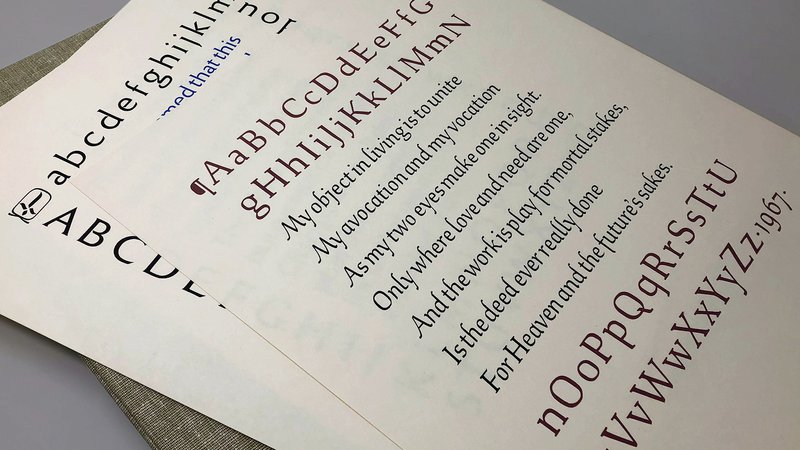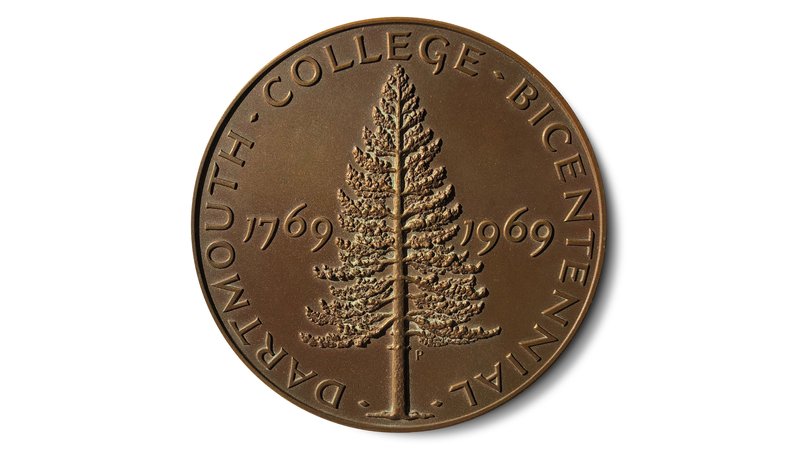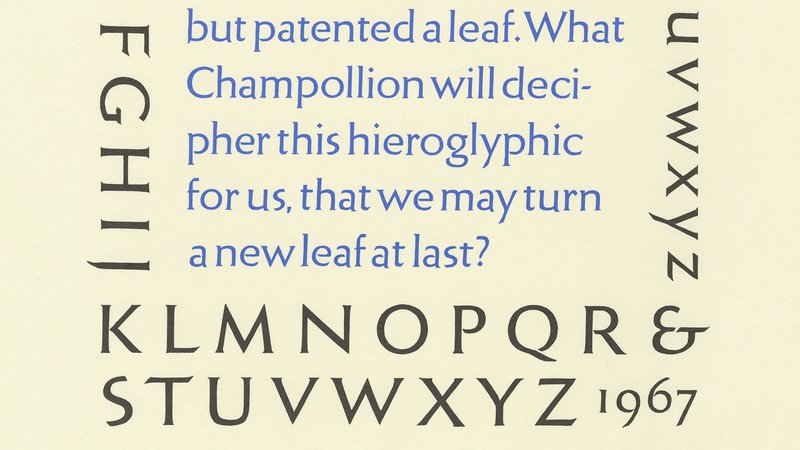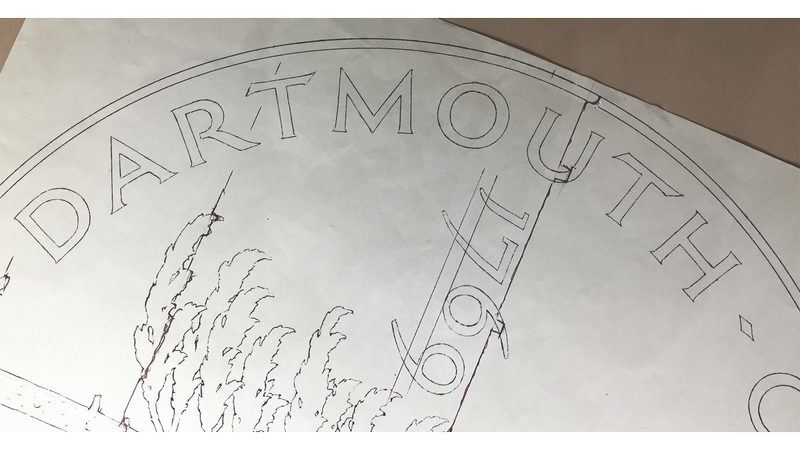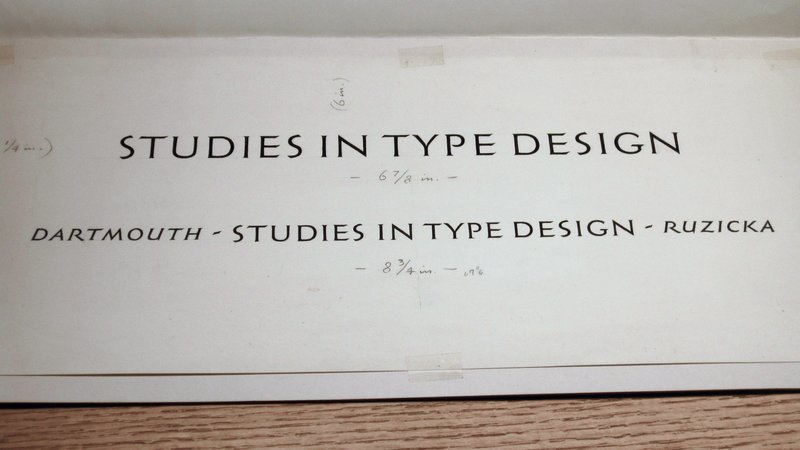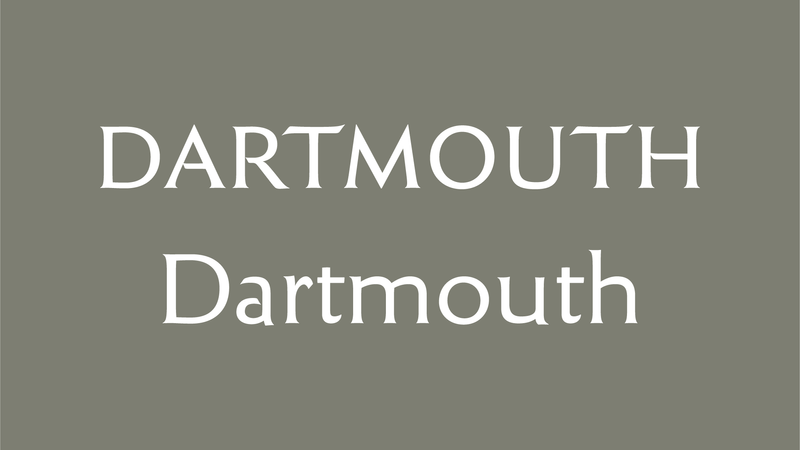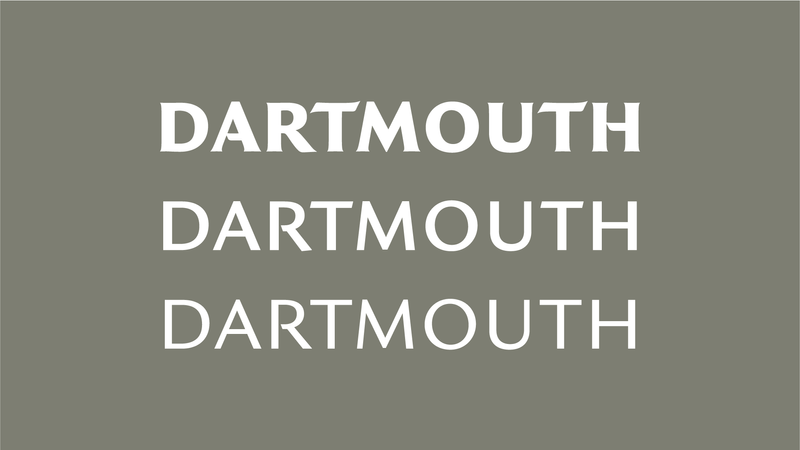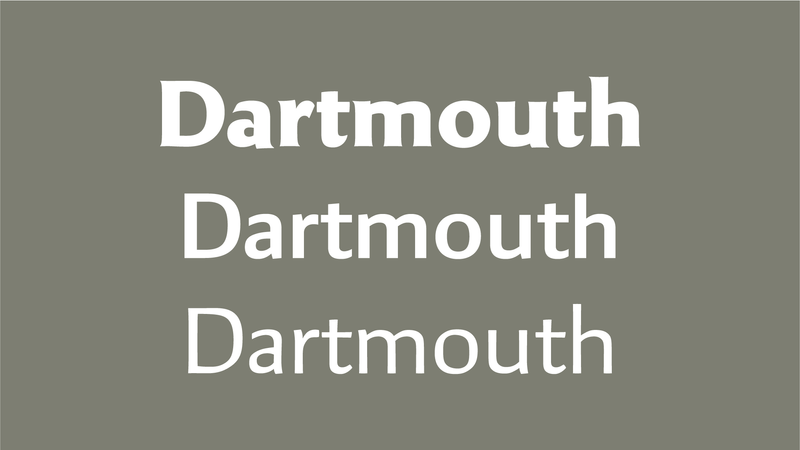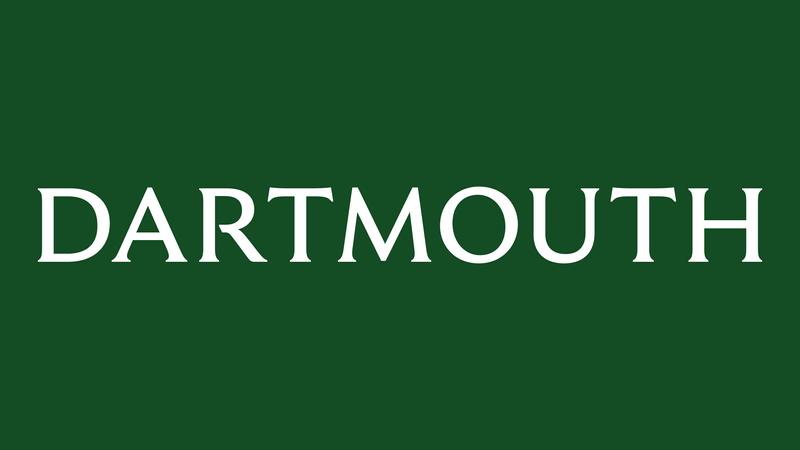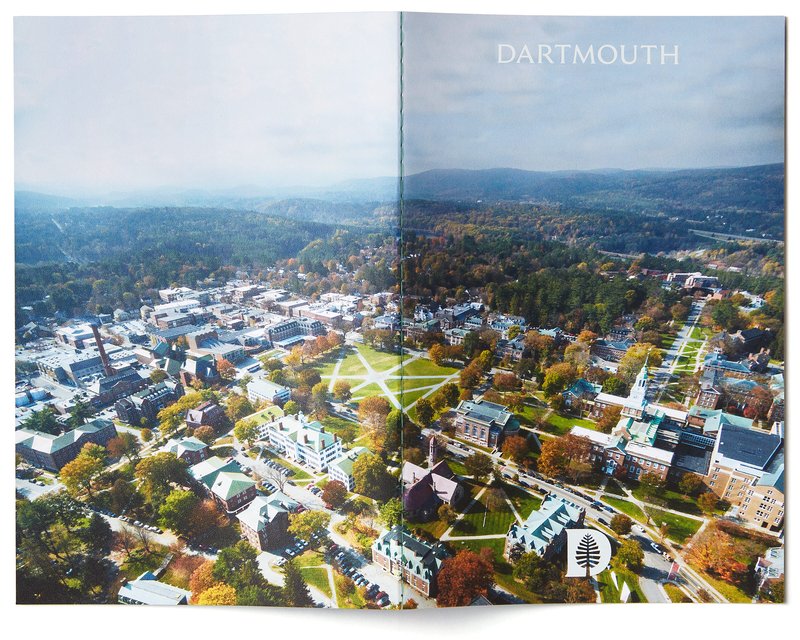
Our work with Dartmouth College is a story of serendipity combined with a long-standing interest in the lettering work of eminent type designer Rudolph Ruzicka. This collaboration resulted in a logotype and custom typeface steeped in Dartmouth’s history, which set the tone for their new identity system.
Custom typeface and lettering for Dartmouth College
Dartmouth logotype
The right person for the job
When Bobby Martin and Jennifer Kinon of Champions Design brought Jesse in to help advise on typography for Dartmouth in 2017, little did they know that they were asking the exact right person at the right time.
Back in 2000, when Jesse was an undergraduate at the Rhode Island School of Design, he came across the book Studies in Type Design, a portfolio of alphabets by Rudolph Ruzicka—typefaces that were never fully realized. Jesse became captivated by this collection that had been published in 1968 when Ruzicka was eighty years old.
Over the course of several years, as a personal project, Jesse experimented with reinterpreting these alphabets as full typefaces. His thorough research even led him to travel to an institution beloved by Ruzicka, which published his Studies and holds an extensive archive of his papers and works: Dartmouth College.
Forward thinking but rooted in the past
The day Jesse visited the Champions Design office, he had no idea who their client was or that his personal project would come to life in such an unexpected way.
There wasn’t much doubt in the moment that this was the right path.
Champions had already met with Dartmouth and knew that their updated identity for the university would focus on five keywords that make the university unique: open-minded, intellectual, pioneering, nurturing, and rooted. They told Jesse: “We need a typeface that is forward-thinking but historical.” He was more than happy to help them do just that.
Getting the logotype right
Together with Bobby and Jennifer, Jesse took a close look at the Ruzicka alphabets he had previously digitized to choose the best one for the Dartmouth logotype. After experimenting with several different options, they settled on a stately set of flared serif capitals Ruzicka had used in his design for the 1969 commemorative Dartmouth College Bicentennial Medal. These letterforms, which set just the right tone for the identity, were also among Jesse’s favorites presented in Studies.
Jesse returned to Rauner Special Collections Library at Dartmouth to dig further into Ruzicka’s papers and drawings. Inside, he found amazing artifacts of the designer’s process, including the original drawings for the medal, the hand-painted alphabets for the book, and an entire box of metal letters used to cast a Bicentennial Plaque on campus.
Handling Ruzicka’s original drawings made me feel personally connected to him. I was able to get into his head a little bit to see how he was thinking.
Our collaborative process with Champions included several rounds back and forth, starting with broad exploration and then zeroing in on small refinements attuned to the visual language of the overall identity system.
By adding and subtracting weight, making serifs thicker and more pronounced (or removing them altogether), and deciding between upper and lower case, the team landed on a logotype that balances the historical roots of Dartmouth while still feeling modern and forward-looking.
A custom typeface just for Dartmouth
In addition to the lettering style used in the logotype, Bobby and Jennifer were drawn to a text serif typeface from Studies in Type Design, which captured the history and academic focus that Dartmouth wanted to bring to all of their communications. They commissioned development of the typeface into a full family, prompting Jesse to pick up a project that had languished in search of a purpose.
The proprietary typeface, Dartmouth Ruzicka, includes special characters and flourishes that help everything from brochures to the university’s website feel distinctively “Dartmouth.”
Study
Dartmouth Visual Identity Guidelines by Champions Design
A place of Study
With permission from Dartmouth, Jesse adapted the same design as Study, a retail typeface we publicly released in 2018. As Jesse explains in his detailed article “Making Study,” by making the long-dormant typeface finally available, he hopes to bring new audiences to Ruzicka’s work, extending and honoring its legacy for years to come.
Branding for athletics
In many educational organizations, the athletic departments need to have a visual vocabulary that is distinct from the institutional side, and Dartmouth is no different. Champions Design asked us to draw a logotype for Dartmouth College Athletics.
Using a vintage jersey as inspiration for the lettering, Jesse created a strong, authoritative logotype in an established collegiate vernacular, yet drawn from Dartmouth’s unique history.